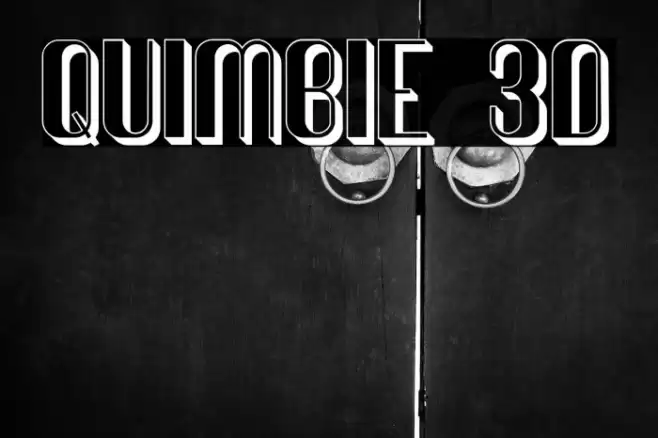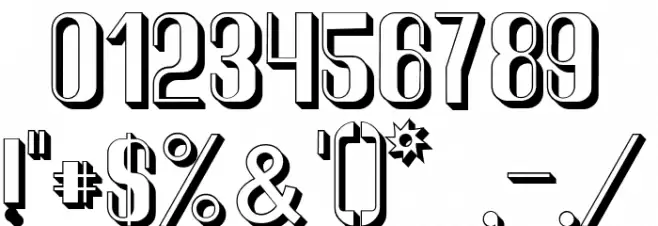
Quimbie 3D Font
Quimbie 3D Description
This font features a bold and striking 3D effect, with each character outlined to create a sense of depth and dimension. The letters are uppercase and have a geometric, block-like structure that gives them a modern and futuristic appearance. The numbers and special characters follow the same design principles, ensuring consistency across the entire typeface. The font's style is eye-catching and ideal for making a strong visual impact.
A bold, 3D geometric font with a modern and striking appearance from Uncategorized fonts.